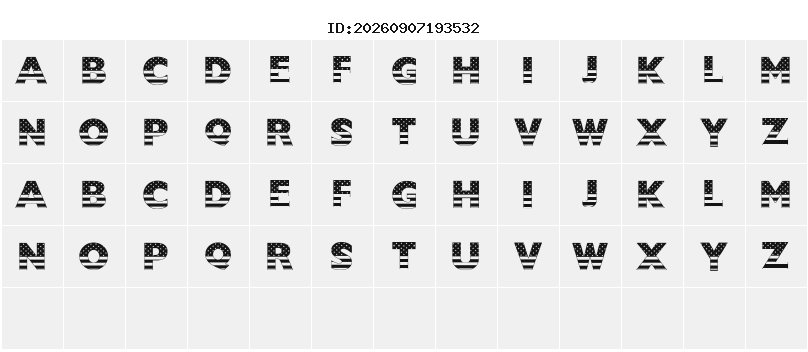
USStarsNStripes Preview
• Font Name: USStarsNStripes
• Font ID: US Flag Font
• Full Font Name: USStarsNStripes
• PostScript Name: USStarsNStripes
• Character Count: 54
• Copyright: Character, 2003
• Designer: Character, based on a graphic font by Cosmi
• Manufacturer: Character
About USStarsNStripes.ttf
USStarsNStripes.ttf is a modern, elegant sans-serif font designed for ultimate readability and visual harmony. Perfect for branding, headlines, web design, and print materials.